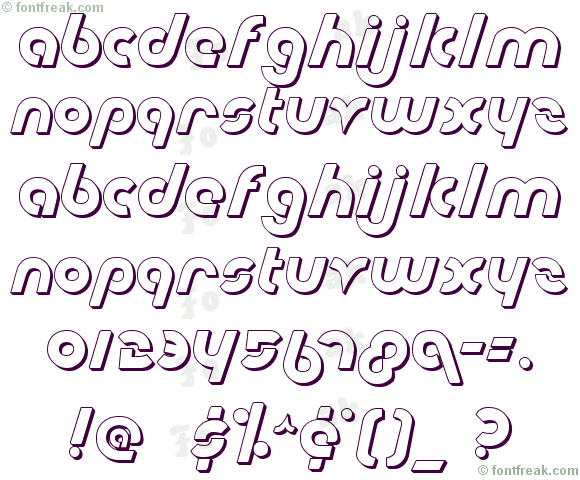
Metroplex Outline Laser
About Metroplex Outline Laser
Metroplex Outline Laser is a striking display font designed by Daniel Zadorozny, categorized as a decorative typeface. Released in 2001, this font showcases a unique outline style that adds a modern twist to traditional typography. Its distinctive design features bold, expanded strokes with a consistent weight, providing an eye-catching contrast against the negative space. The outlines create a sense of depth, while the rounded edges soften the overall appearance, making it versatile for various creative projects.
This font is particularly well-suited for applications that require a bold statement. It excels in creating attention-grabbing headlines for movie posters, where its futuristic vibe can evoke excitement. Additionally, Metroplex Outline Laser is ideal for branding small businesses, especially in technology or creative sectors, where a modern aesthetic is key. It can also enhance restaurant menus and signage, offering an engaging visual experience that draws customers in. Content creators will find it effective in social media graphics and promotional materials, as it stands out in a crowded digital landscape.
What sets Metroplex Outline Laser apart is its ability to blend playful creativity with professional appeal. This font not only captures attention but also maintains readability, making it a fantastic choice for anyone looking to make a lasting impression. Its unique outline style ensures that it will elevate any design project, providing a fresh and modern look that resonates with contemporary audiences.